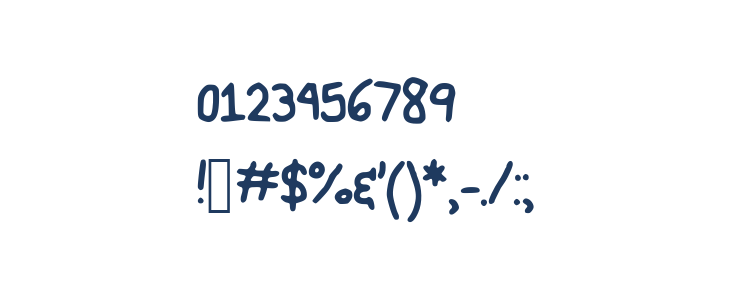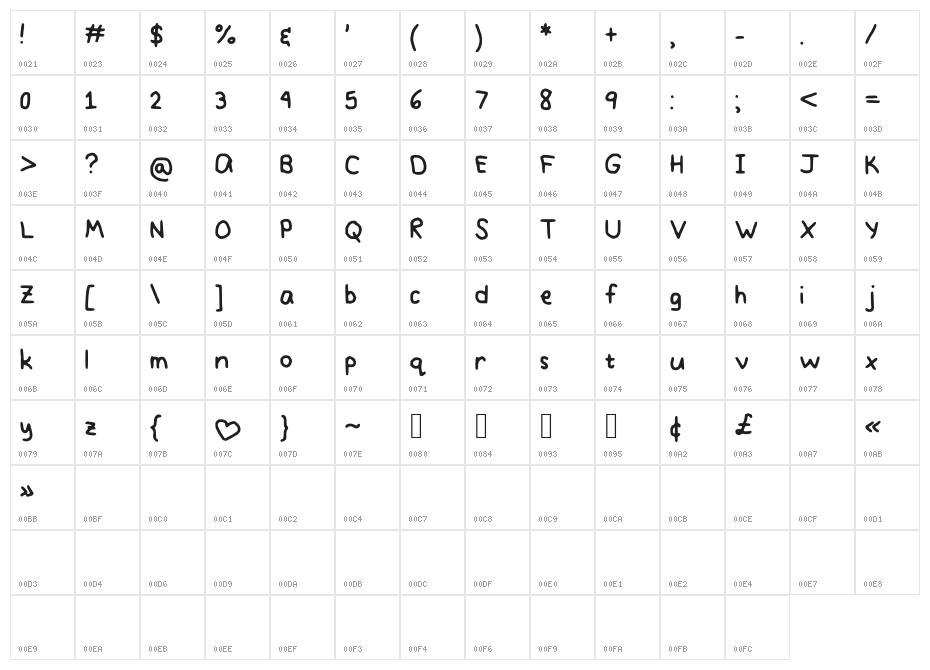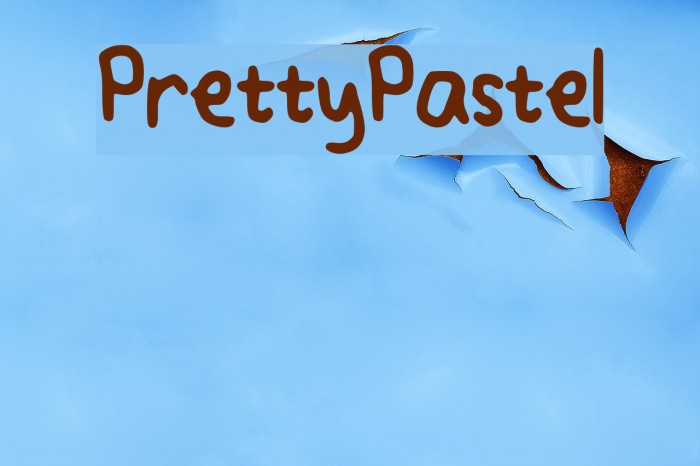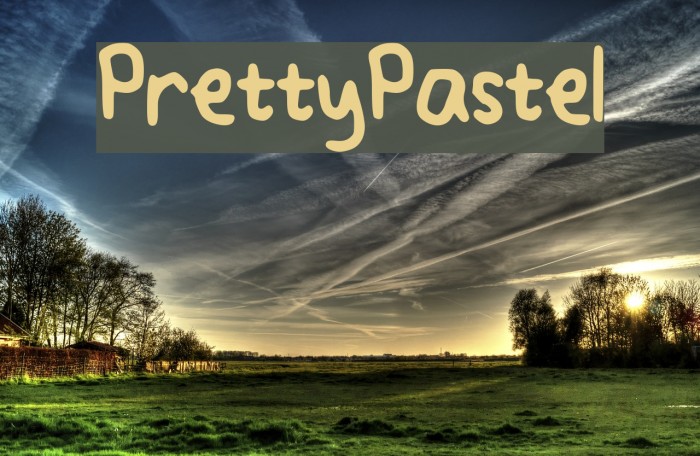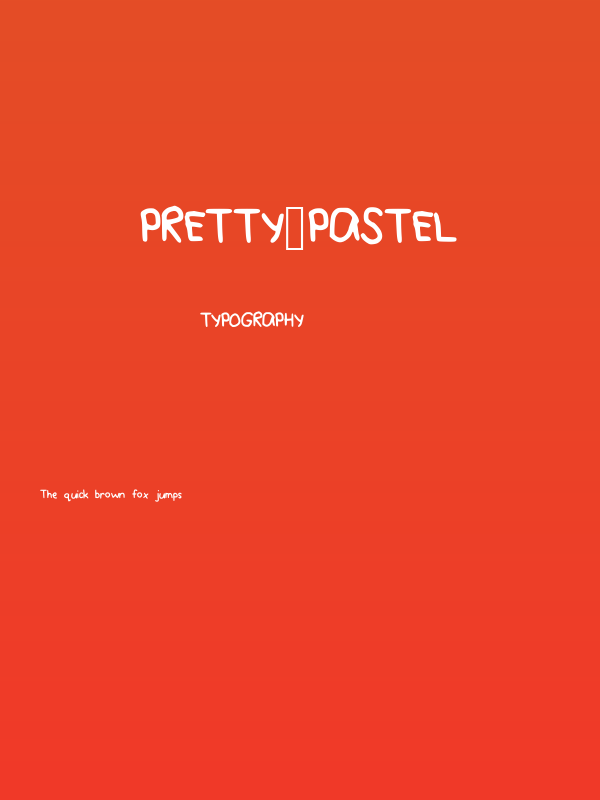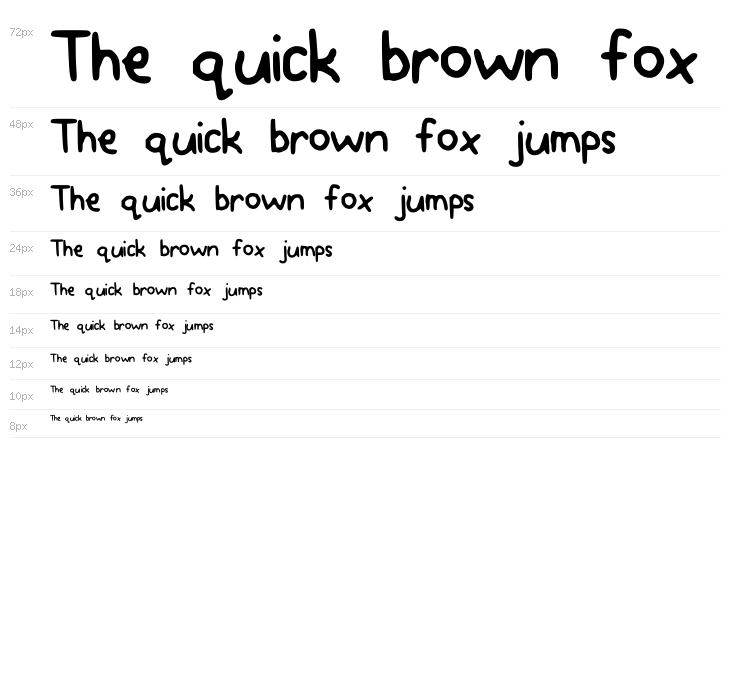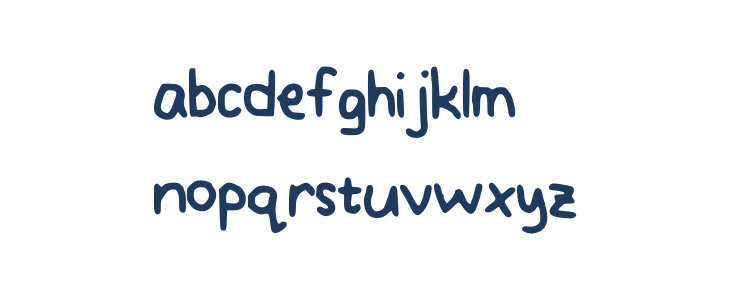
Pretty_Pastel Font
| Gesamtstil | Casual, Playful |
| Anwendungsfall | Headlines, Logos, Invitations |
| Vorgeschlagene Projekte | Ideal for children's books, greeting cards, playful branding, and casual invitations. |